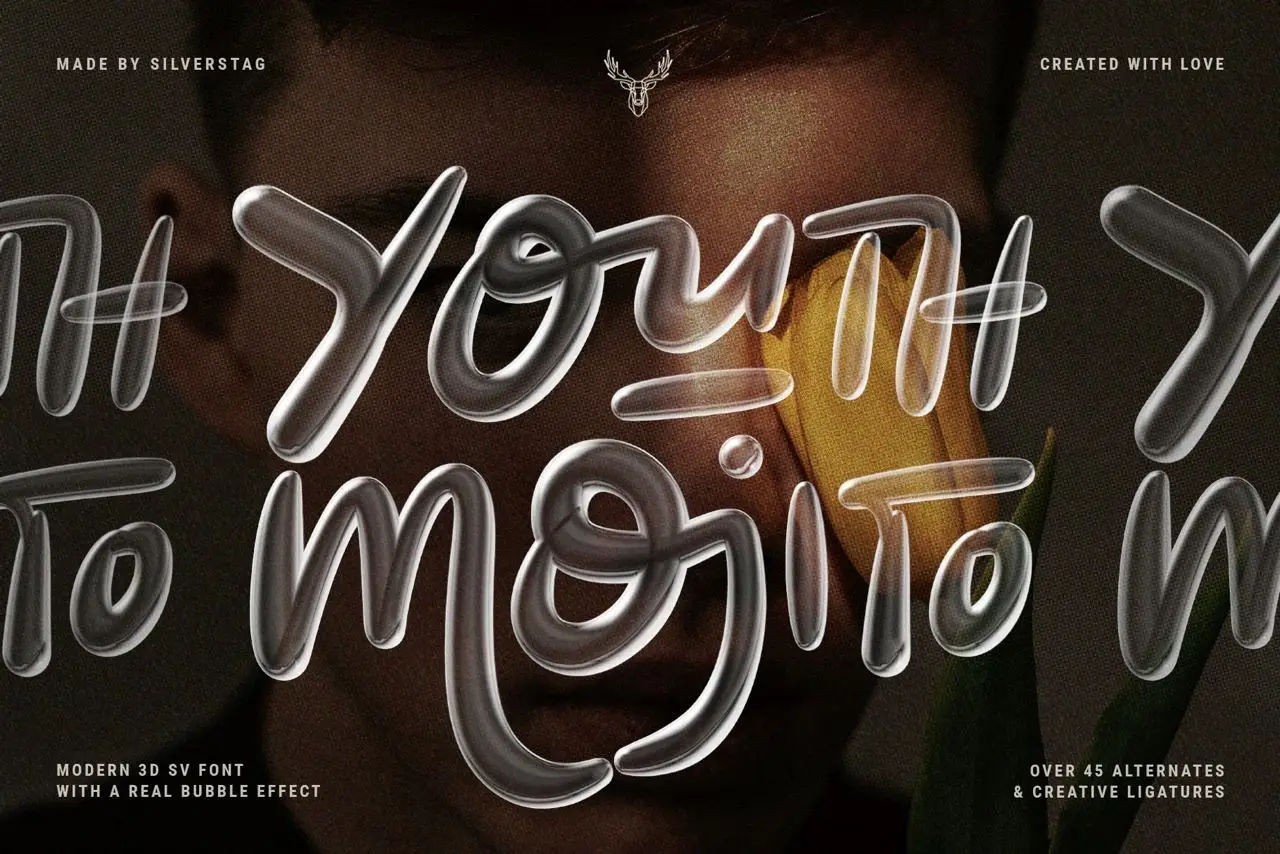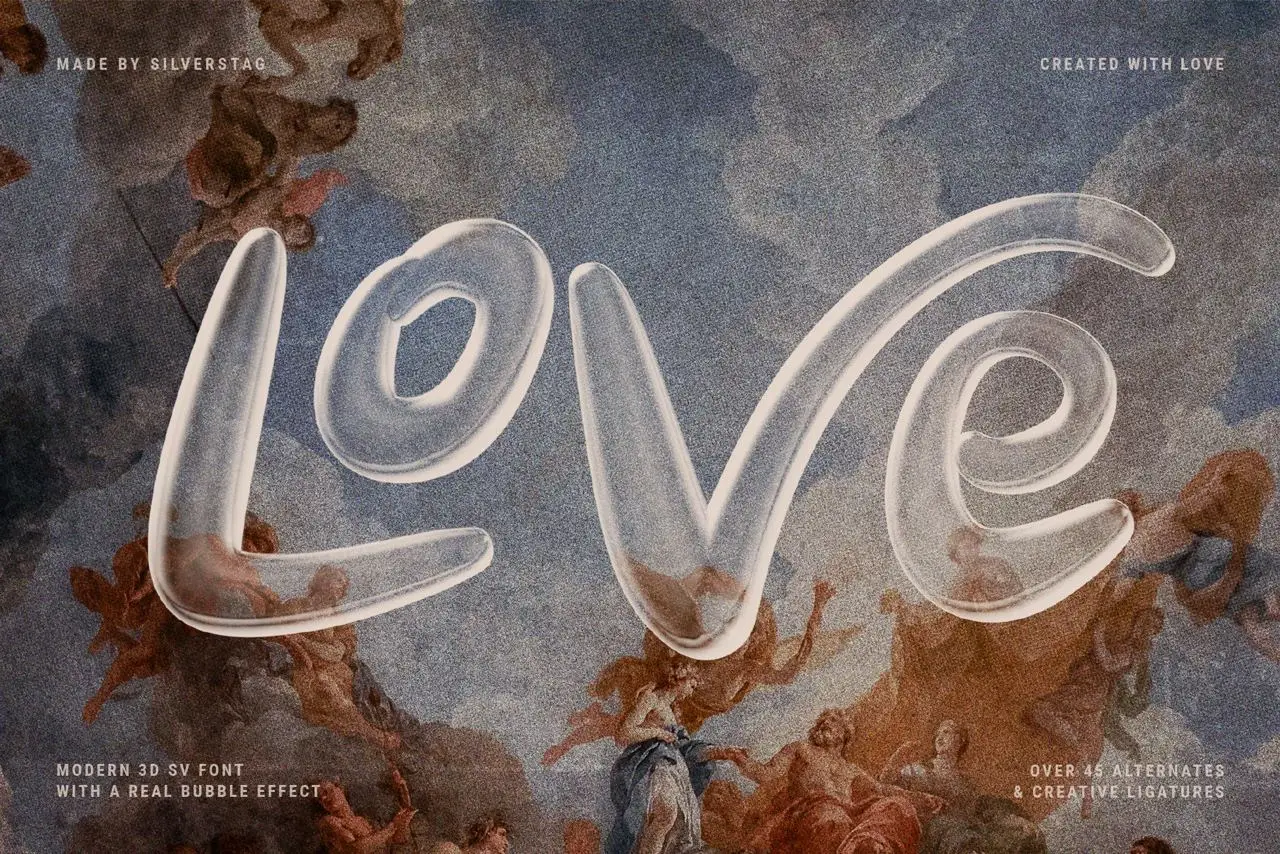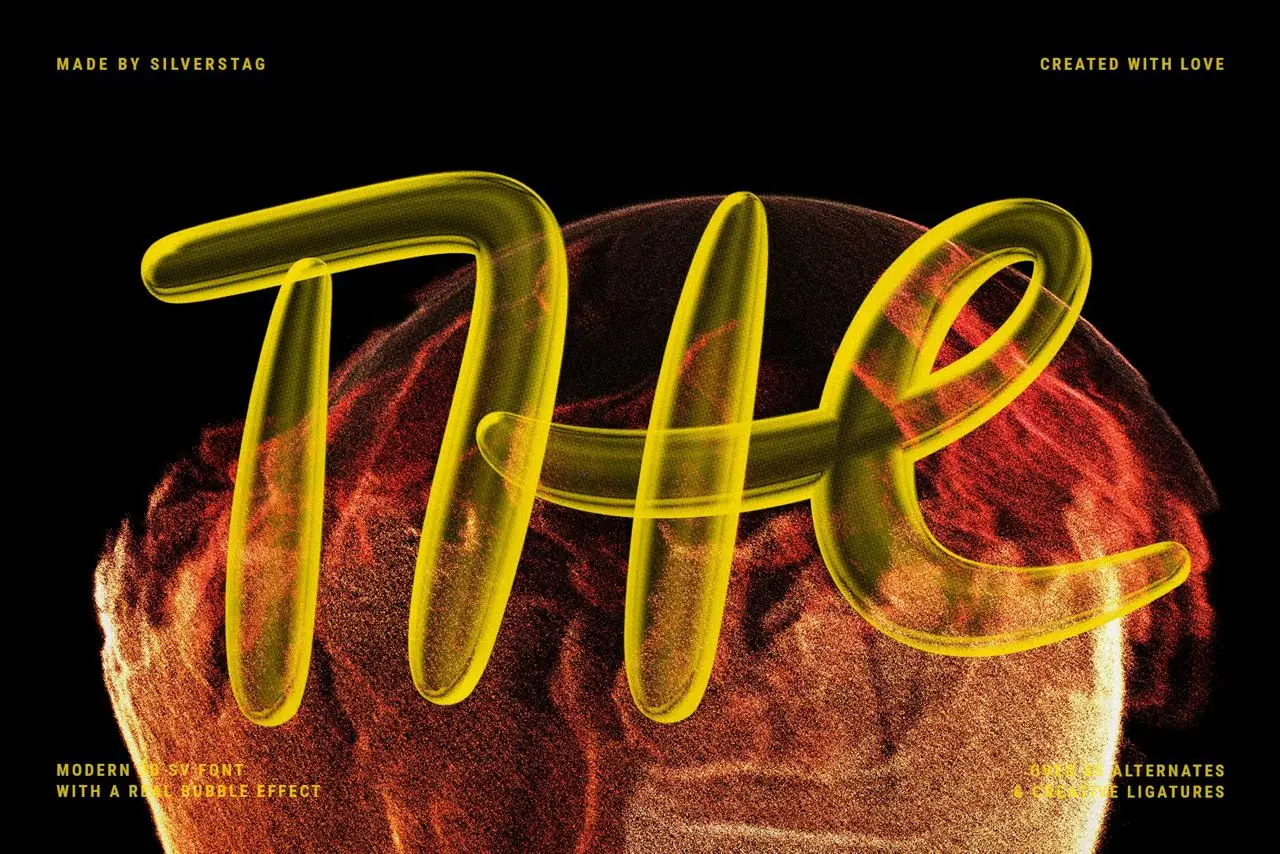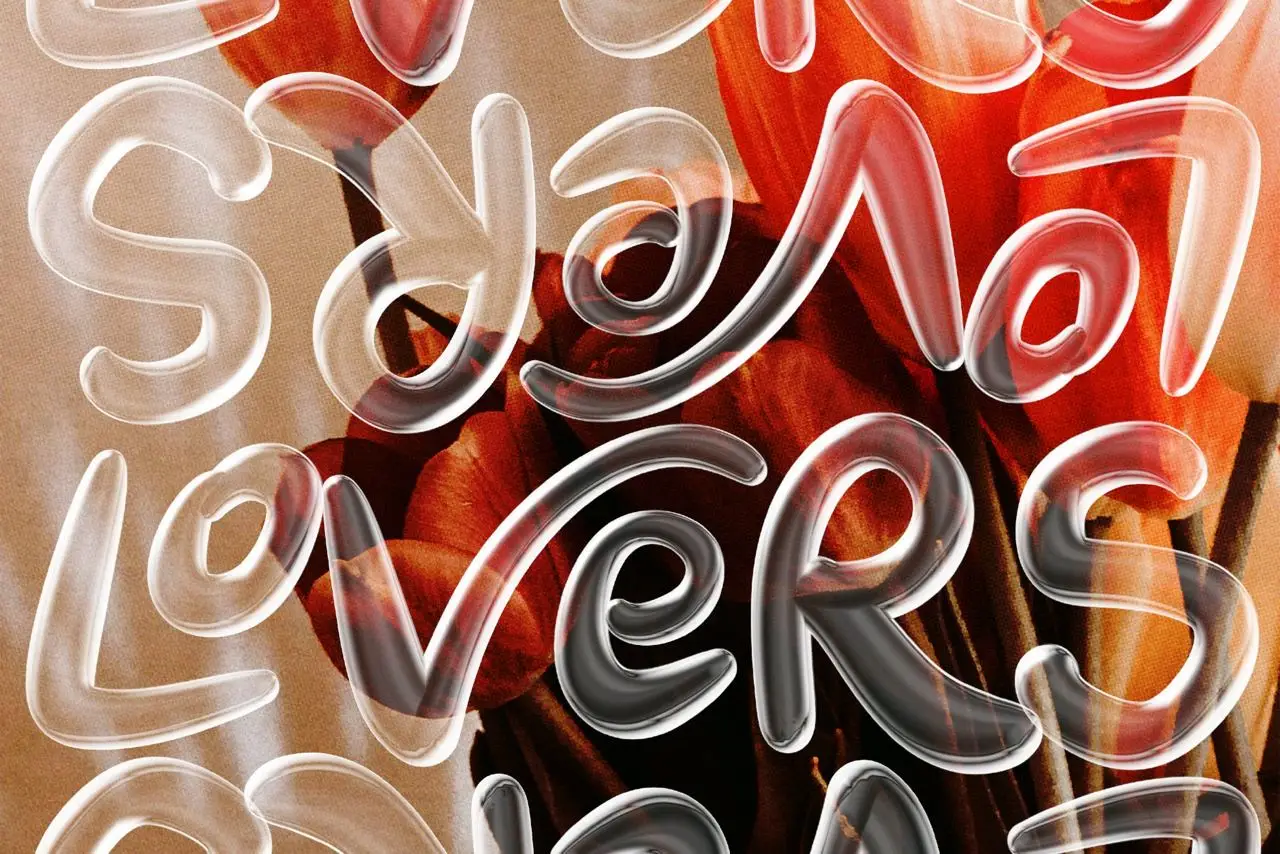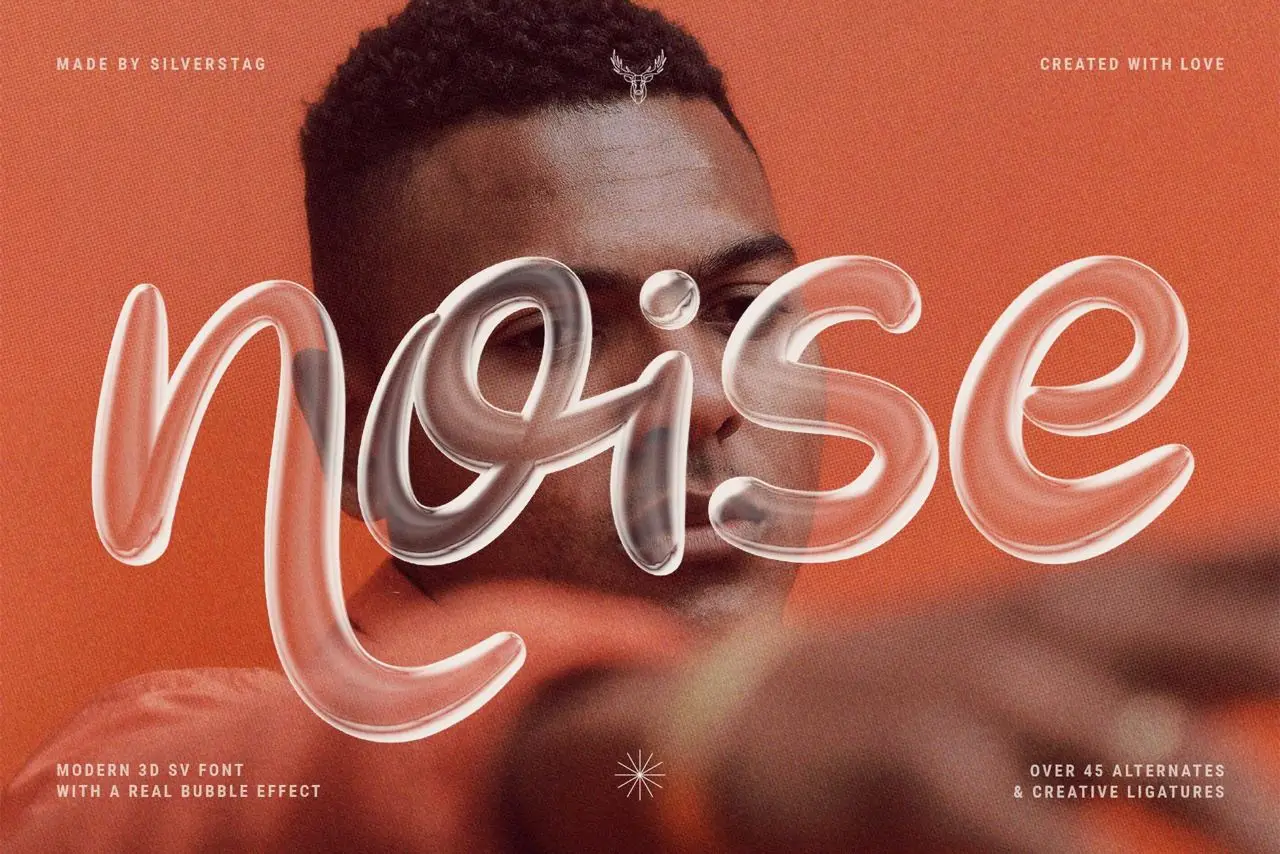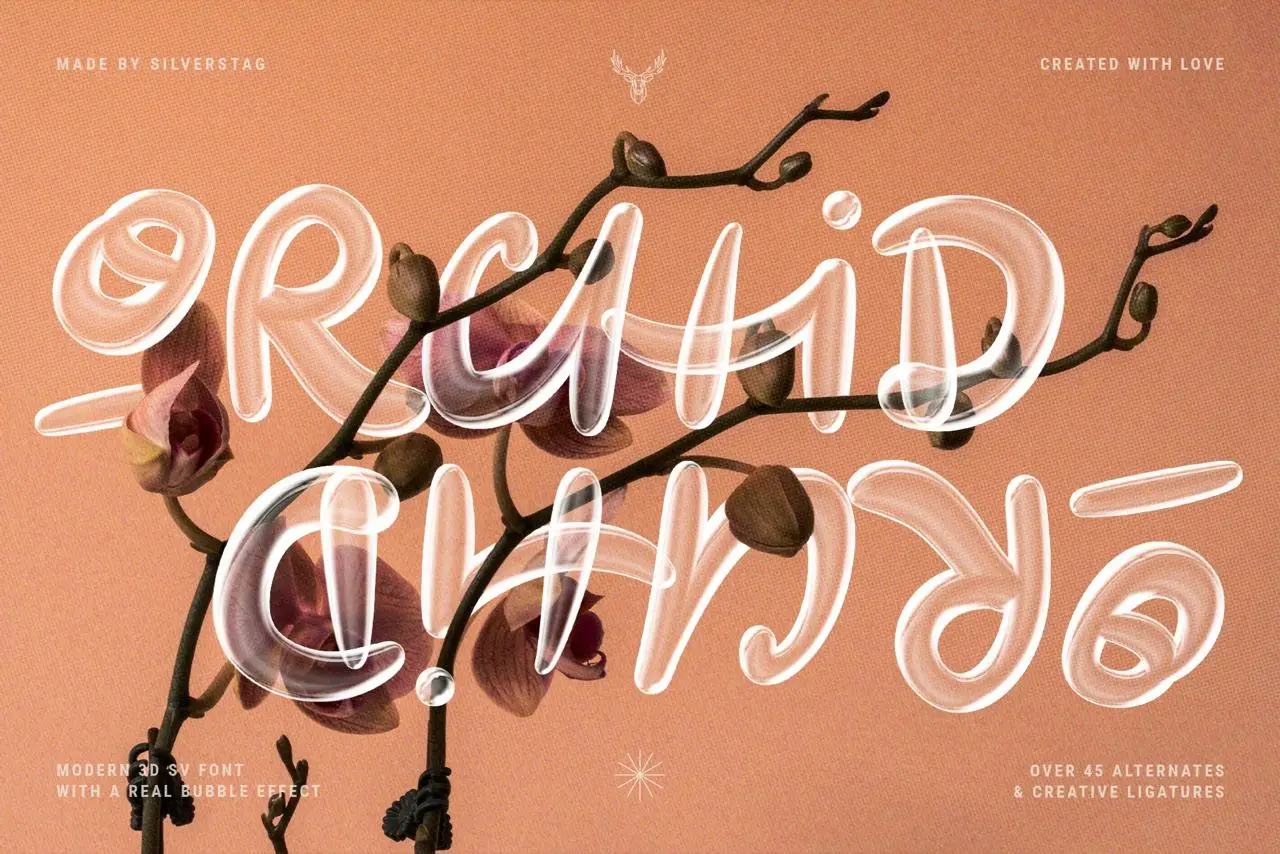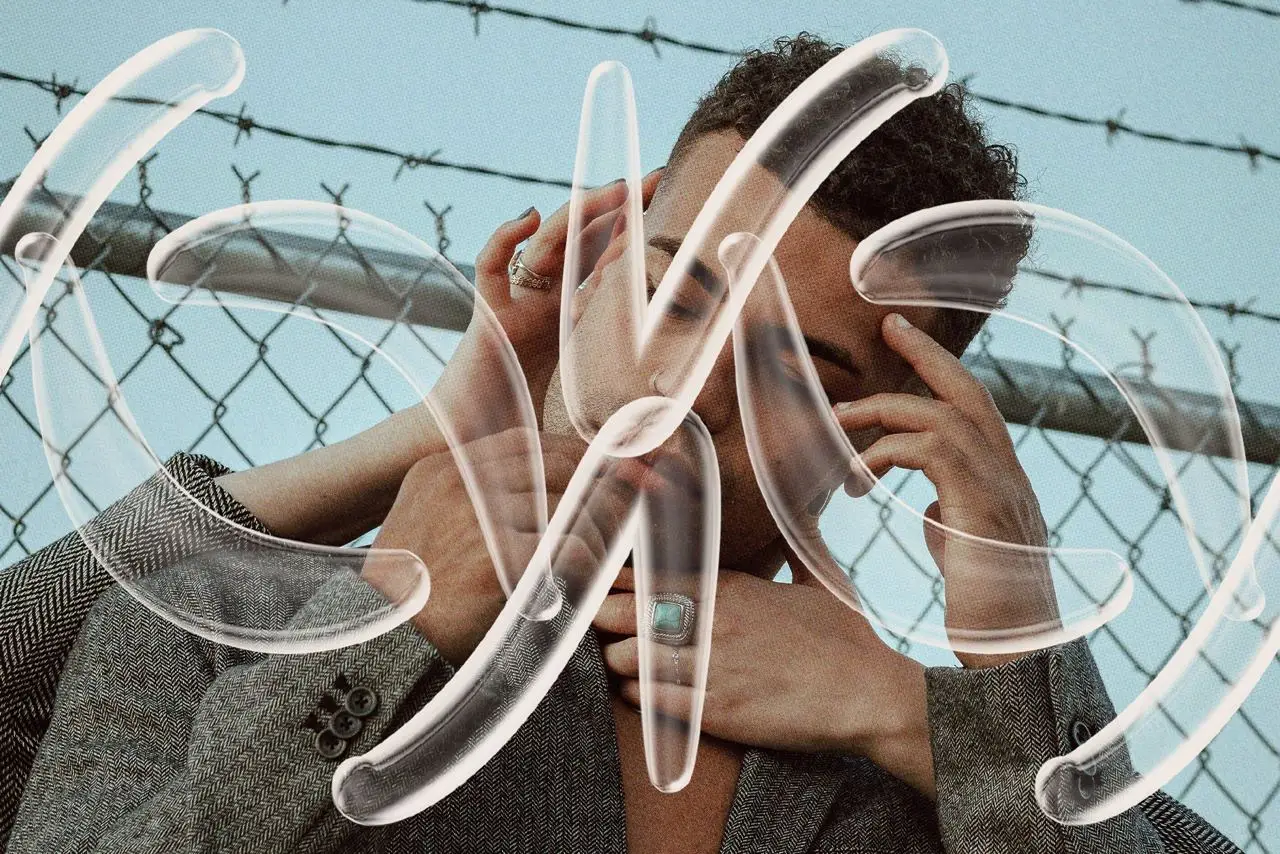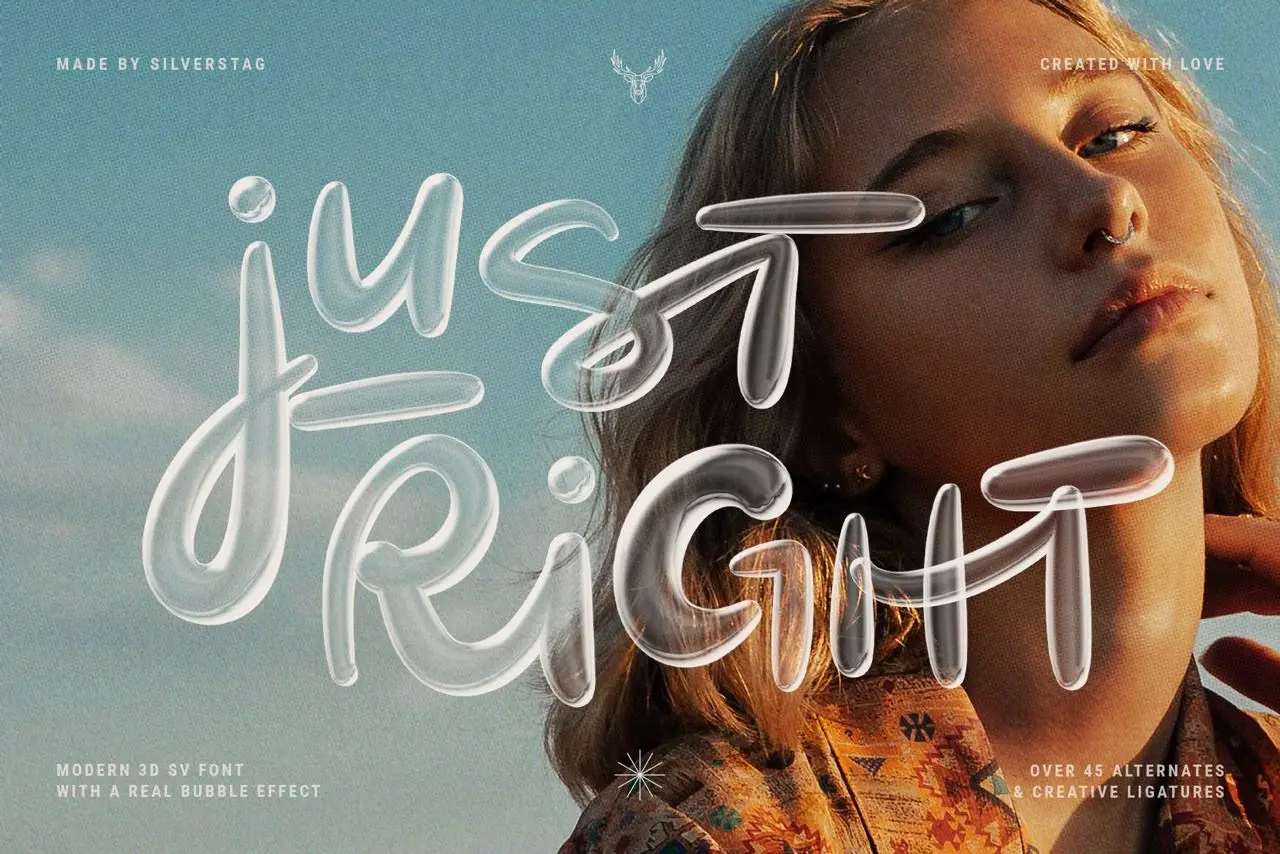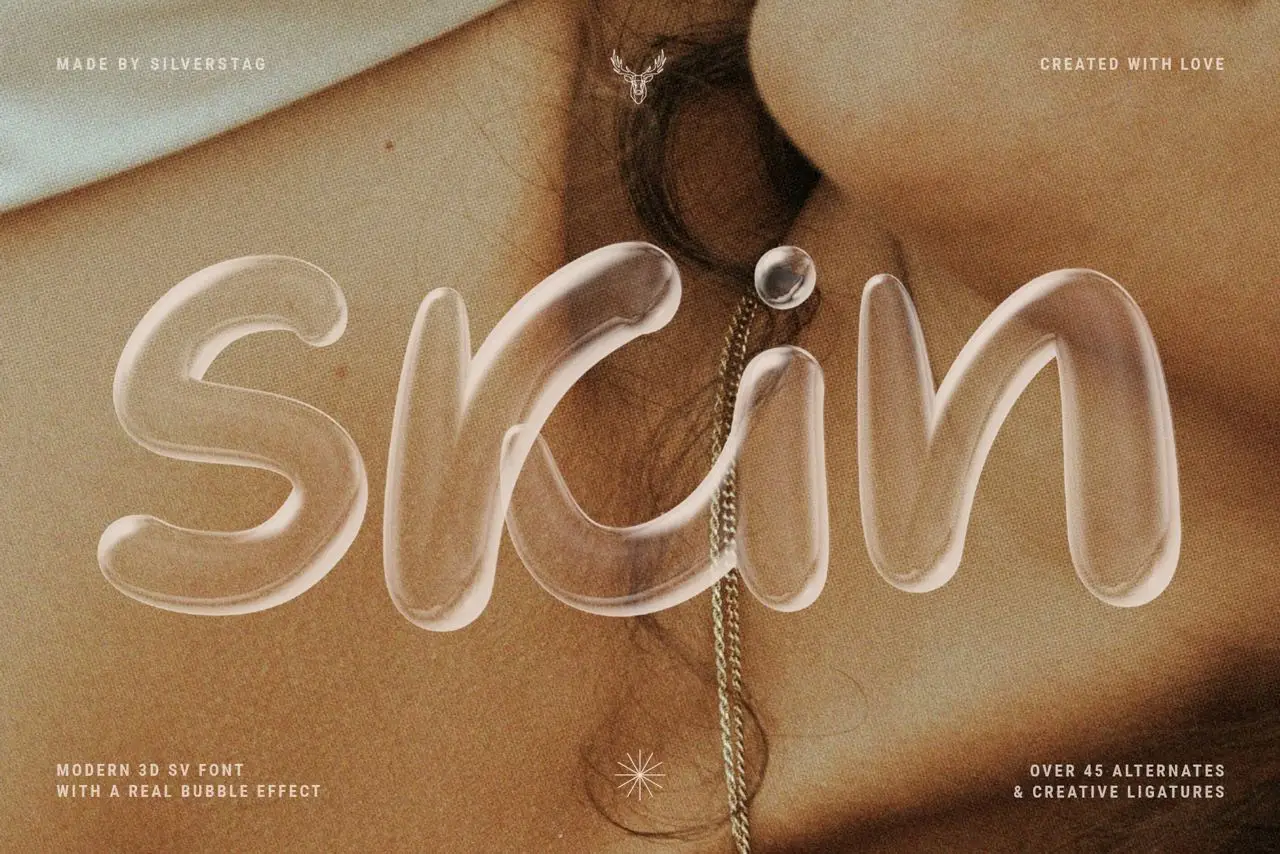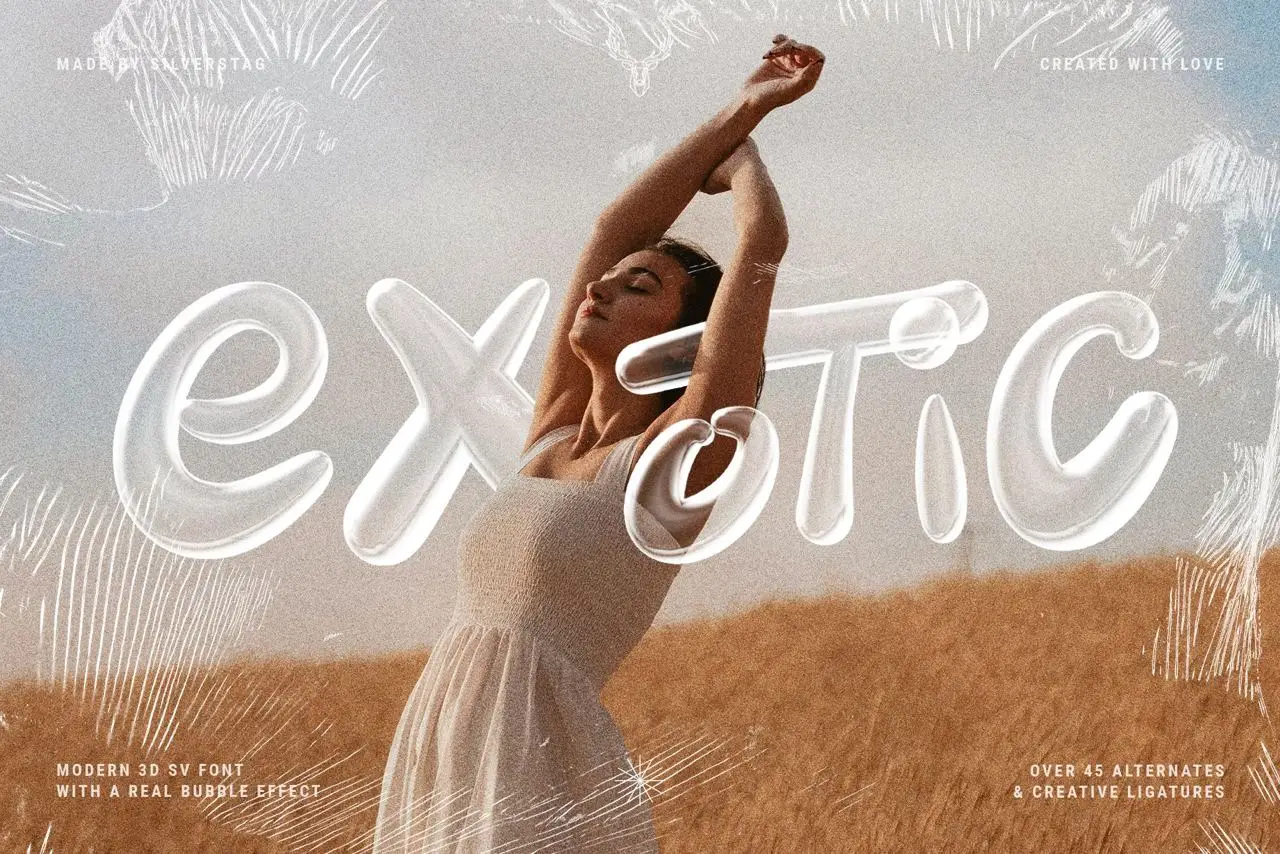
Youth Mojito-A 3D Bubbly Svg Font
The Youth Mojito-A 3D Bubbly Svg Font is a playful and vibrant typeface designed to bring a fun and lively touch to your projects. This font features a unique 3D bubbly style that is perfect for eye-catching designs.
Utilize this font for branding, logos, web design, and print materials. Its bubbly appearance makes it ideal for children’s products, party invitations, and any project that requires a cheerful and engaging aesthetic.